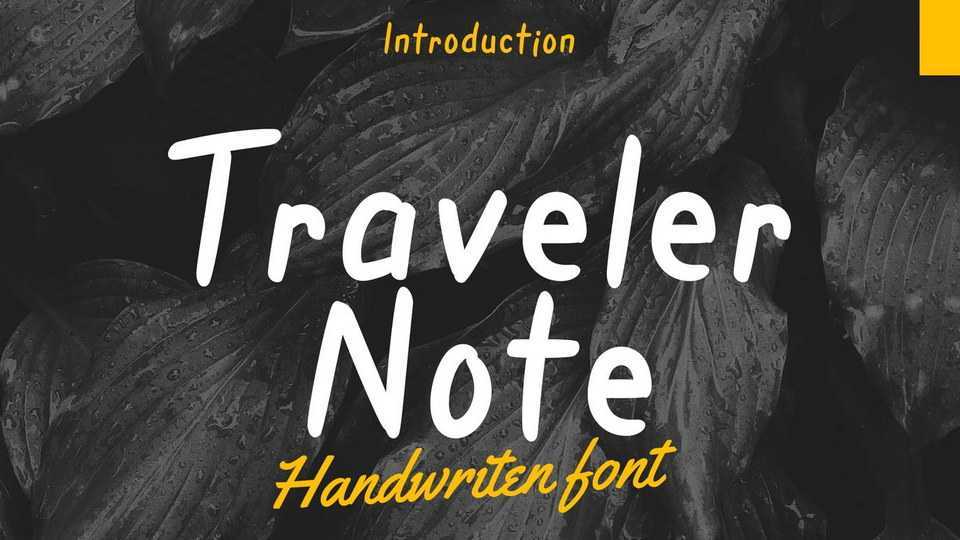
Download Traveller Note font, a handwritten typeface. Light and simple, but still have a huge impact on your designs. Traveller Note will uplift the journey and adventurous vibe that you want to have on your design.